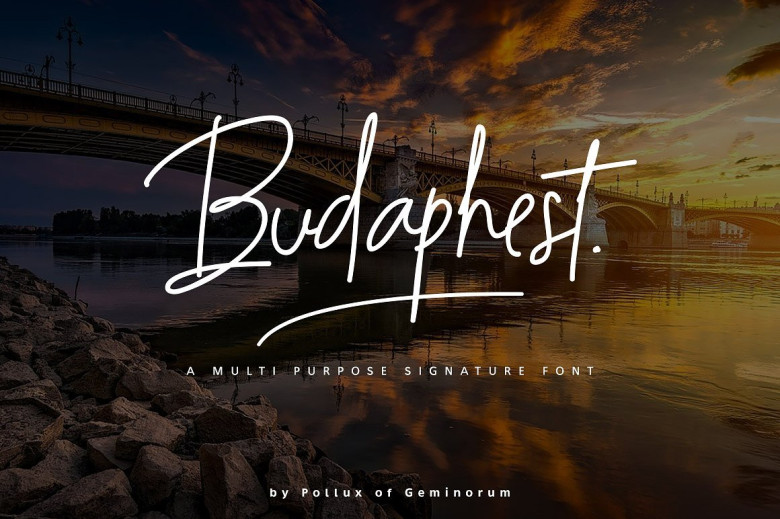
Budaphest Signature Font
For those of you who are needing a touch of elegance and modernity for your designs, this font was created for you! It is a multi purpose signature font. Introducing Budaphest. Budaphest is an created by Pollux of Geminorum. Bring your designs to the nexl level with Budaphest Script! A Multi Purpose signature-style font. It’s great to make creating stylish new handwriting text easily. With extra swash, Budaphest perfectly for logos, headers on blog or magazine, branding for personal or company, product packaging, business cards, album cover, etc.